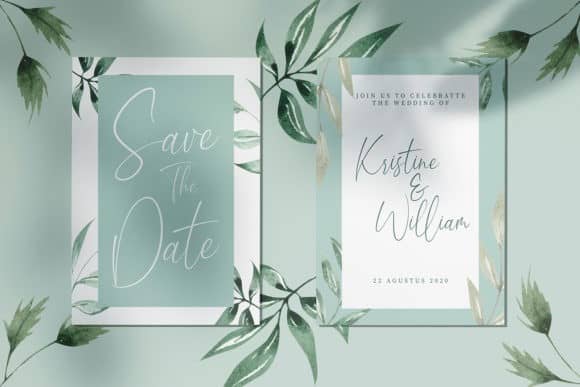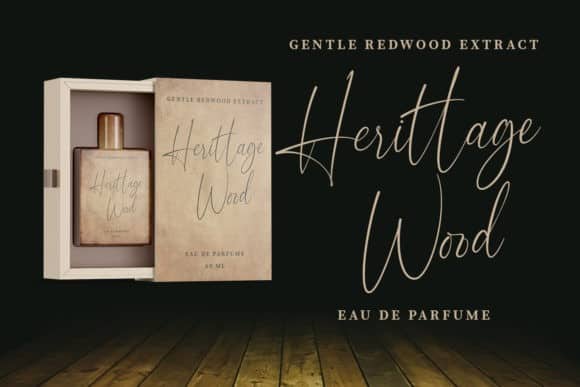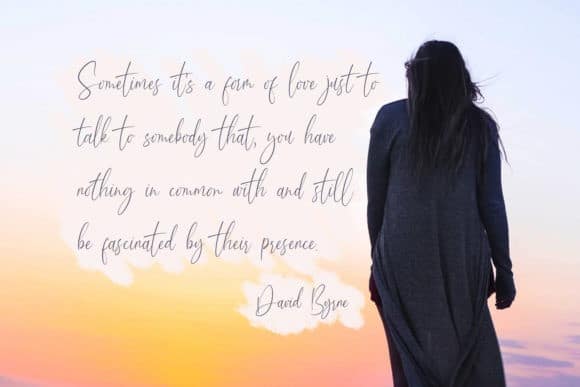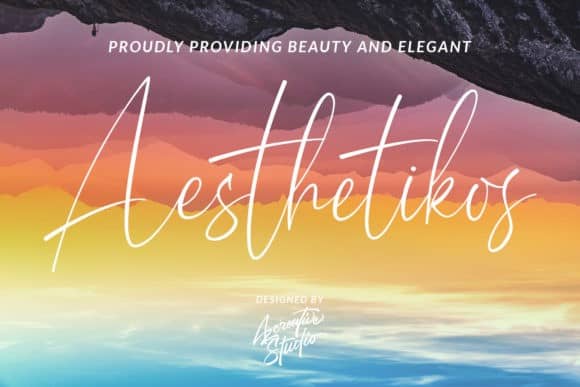
Aesthetikos Script Font is a chic casual modern calligraphy script font. You will get full set of lowercase and uppercase letters, numerals and punctuation, multilingual symbols. It looks stunning on wedding invitations, thank you cards, quotes, greeting cards, logos, business cards and every other design which needs a handwritten touch. It features a varying baseline, smooth lines, gorgeous glyphs and stunning alternates.